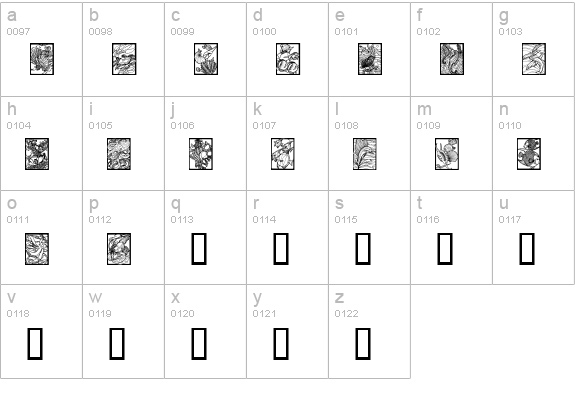
Sealife Font Details
Introducing Sealife font, a captivating typeface that brings the mesmerizing beauty of the underwater world to your designs. With its intricate details and graceful curves, this font captures the essence of marine life, allowing you to immerse yourself in a world of creativity. Sealife font is not just visually stunning; it is also versatile and easy to use. Whether you're designing a logo, a poster, or a website, this font will add a touch of elegance and sophistication to your project. Its unique and organic shapes evoke the fluidity and movement of the ocean, making it perfect for any design that seeks to convey a sense of tranquility and harmony. One of the best things about Sealife font is that it is freely available to download at FontsMarket.com. This means that you can unleash your creativity without any constraints or limitations. Whether you're a professional designer or a hobbyist, this font gives you the freedom to explore and experiment, allowing you to create truly unique and captivating designs. So why wait? Dive into the enchanting world of Sealife font and let your imagination run wild. Download it for free at FontsMarket.com and embark on a journey of creativity and inspiration.